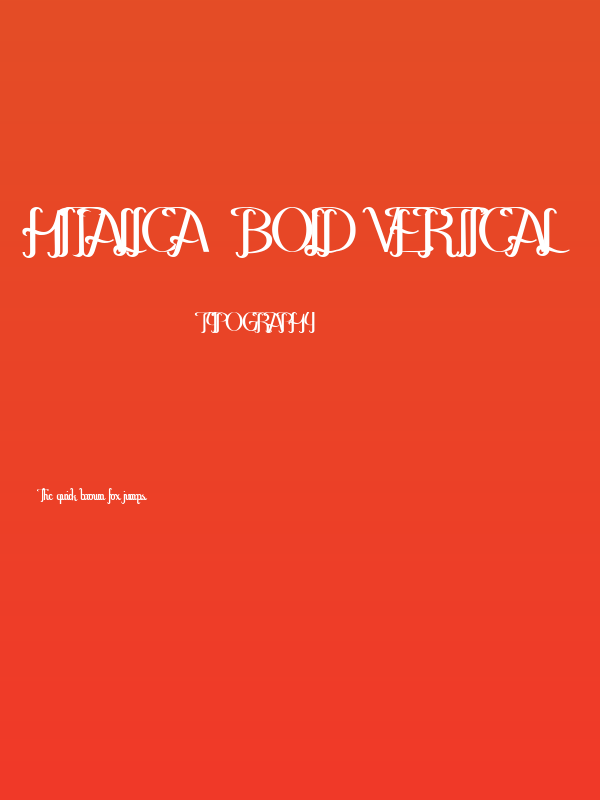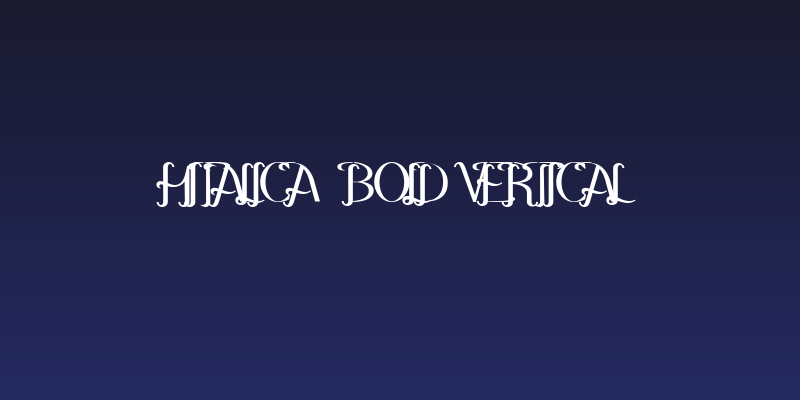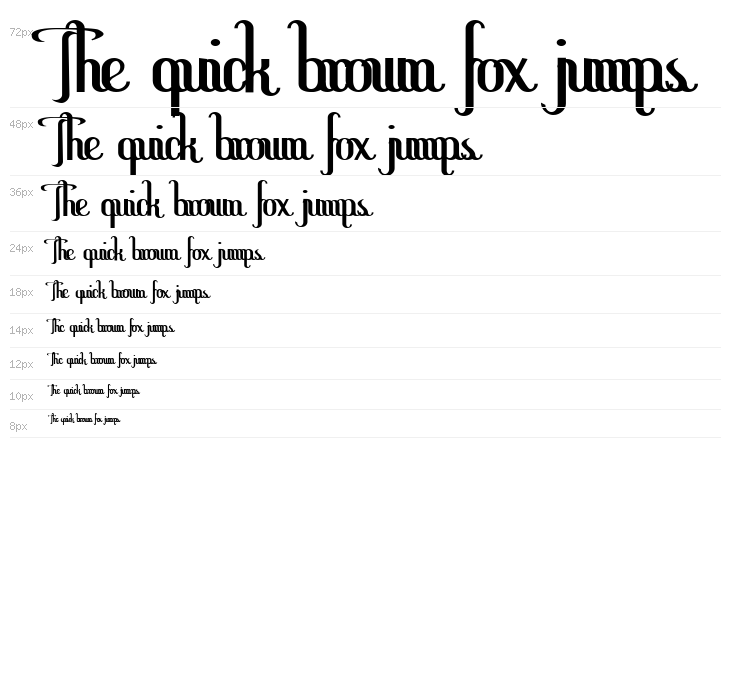
Hitalica Bold Vertical Font
Hitalica Bold Vertical Description
This font features a bold and vertical style with a distinctive decorative flair. The uppercase letters are elegantly intertwined, creating a sense of movement and sophistication. The lowercase letters maintain a consistent style, with elongated strokes and a unique blend of curves and sharp angles. Numbers and special characters are designed with the same artistic touch, ensuring a cohesive look across all elements. The overall appearance is both modern and classic, making it versatile for various design projects.
| Proposed Projects | Ideal for branding, logos, headlines, and artistic posters where a bold statement is needed. |